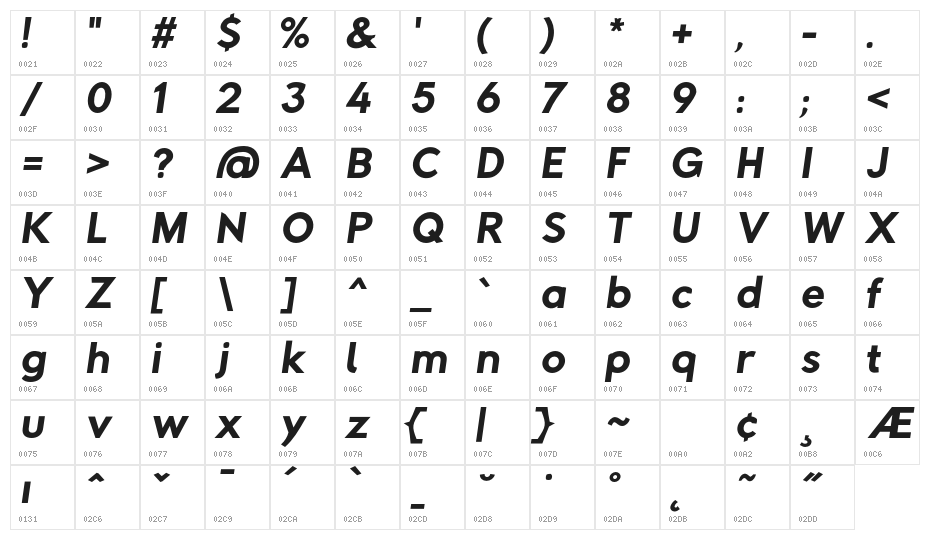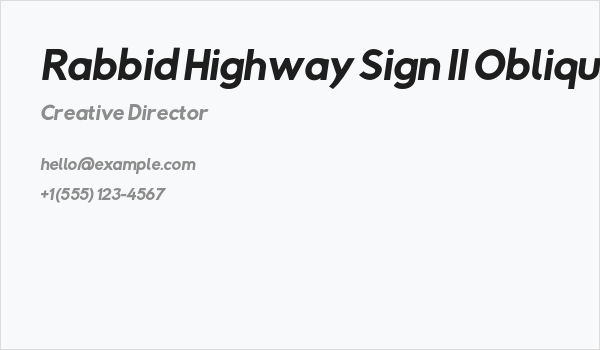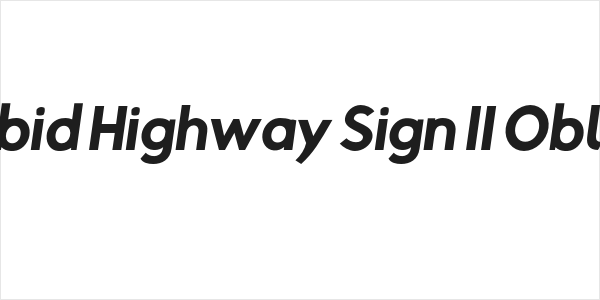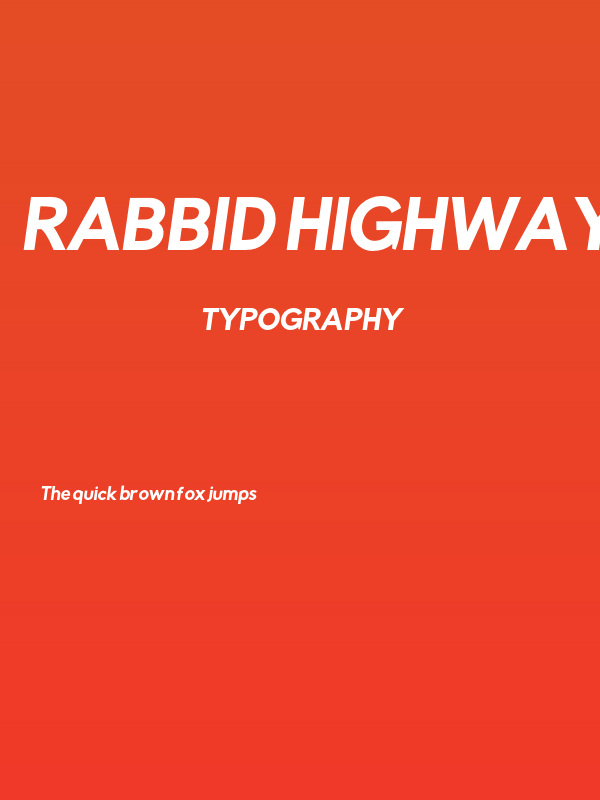
Rabbid Highway Sign II Oblique Font
Rabbid Highway Sign II Oblique Description
This font features a bold, oblique style with a modern and dynamic appearance. The uppercase and lowercase letters are designed with a slight slant, giving a sense of motion and energy. The characters are well-proportioned with consistent stroke thickness, contributing to a clean and professional look. The numerals and special characters maintain the same slanted style, ensuring uniformity across all glyphs. The font's bold weight and oblique angle make it stand out, ideal for attention-grabbing designs.
| Use Case | Headlines, Logos, Signage |
| Proposed Projects | Ideal for highway signage, advertising, branding, and any project requiring a bold, modern look. |